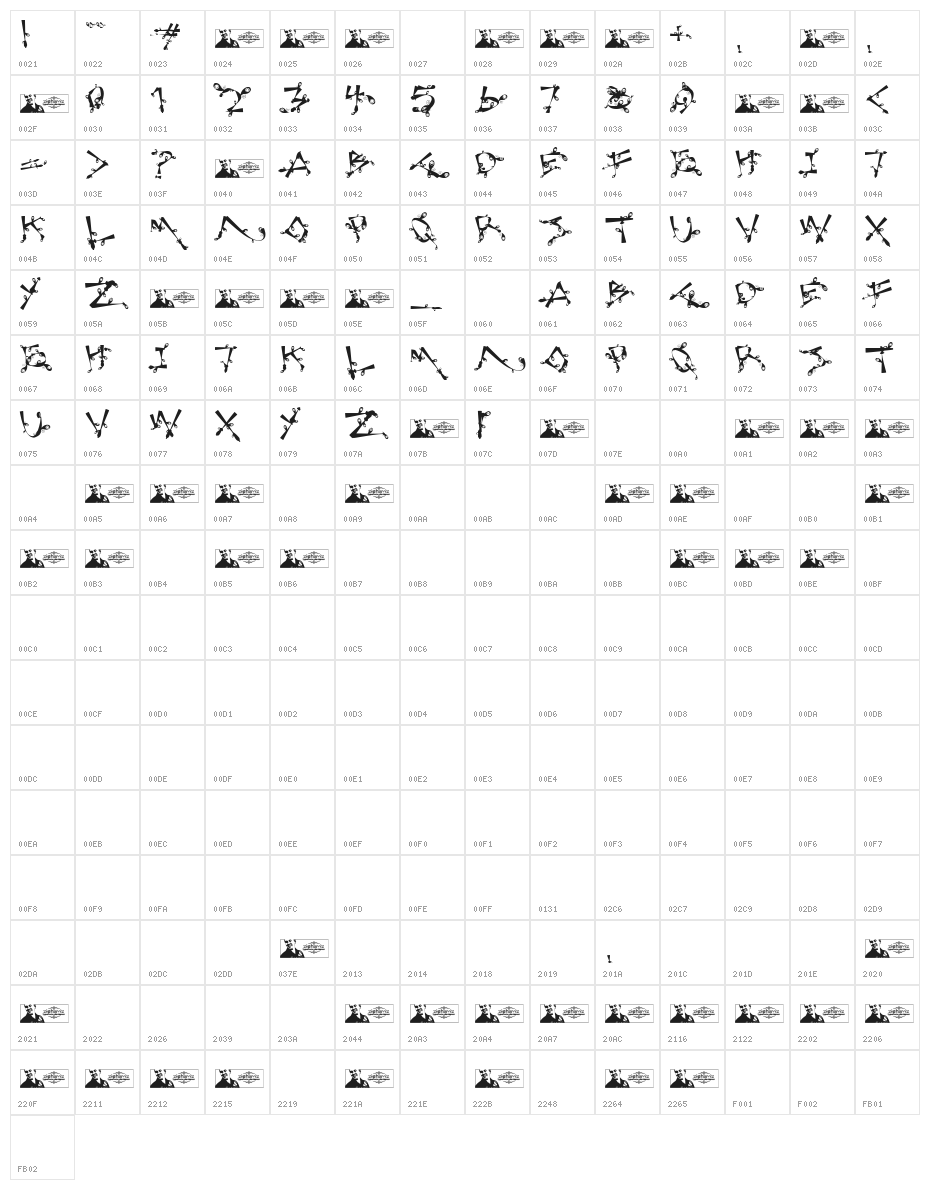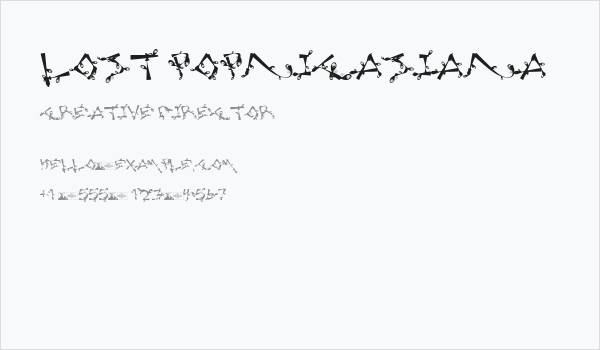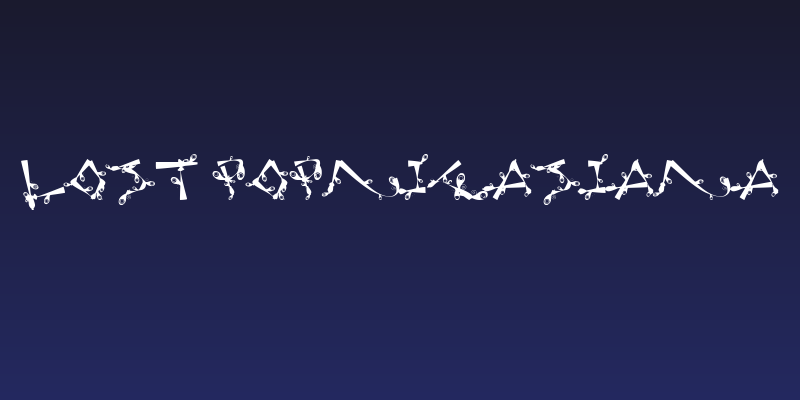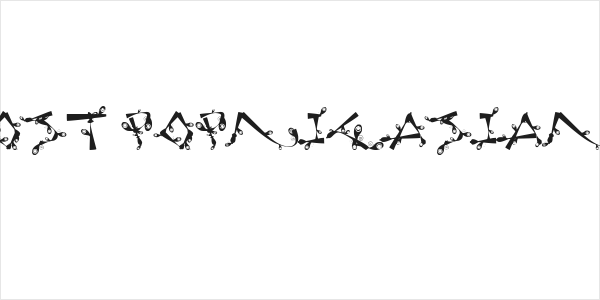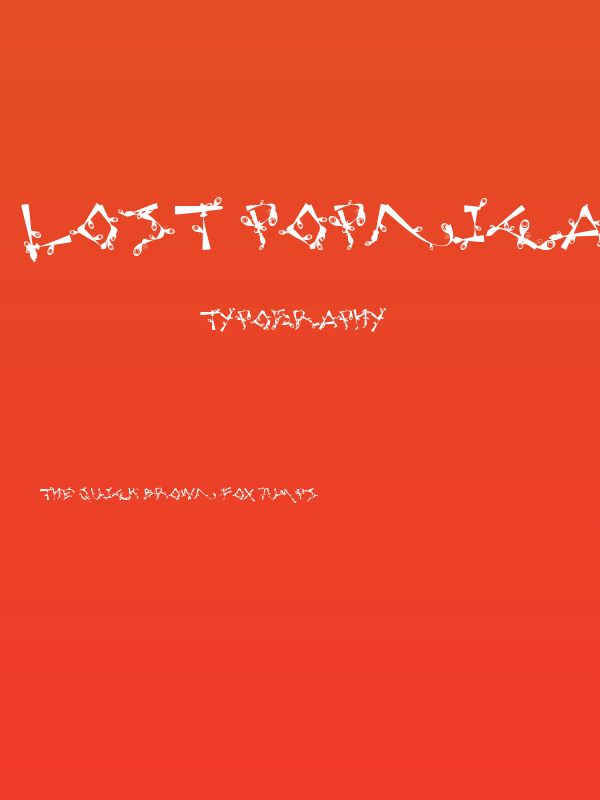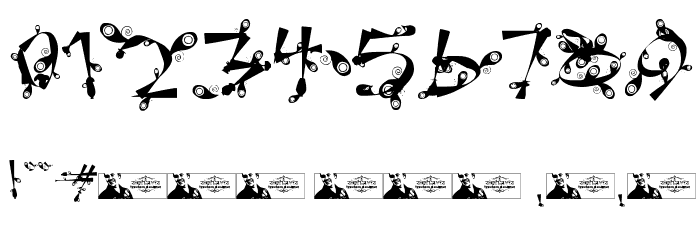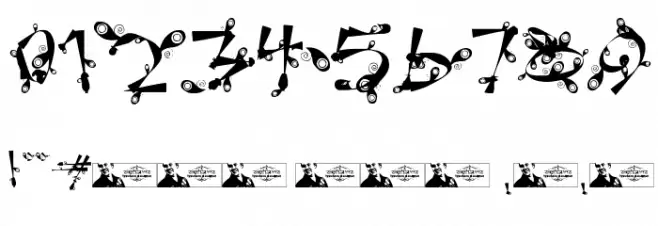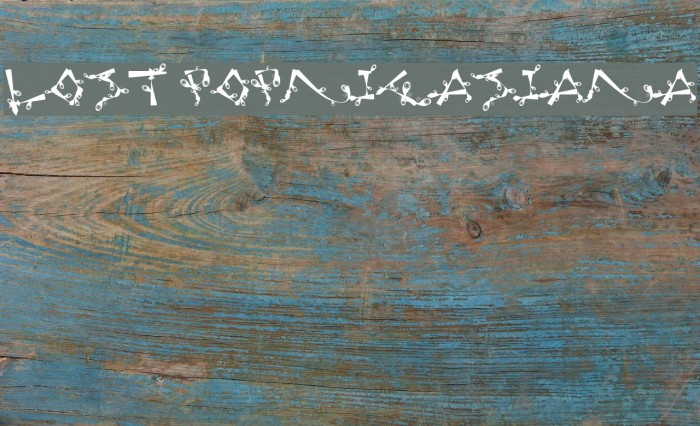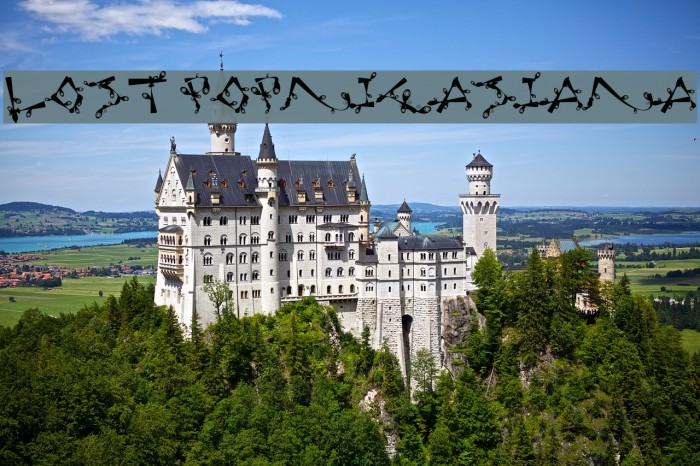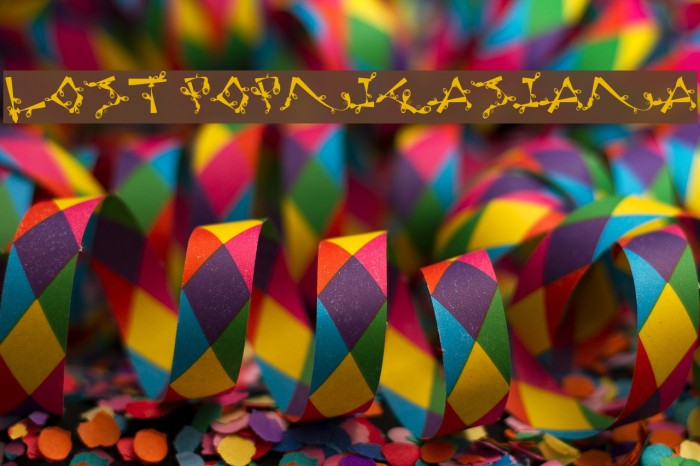
Lost Popnicasiana Font
Lost Popnicasiana Description
This font features a whimsical and decorative style, characterized by its intricate swirls and curls that extend from the main strokes of each character. The letters are bold and playful, with a unique artistic flair that makes them stand out. The uppercase and lowercase letters maintain a consistent design, with the embellishments adding a sense of movement and creativity. The numbers and special characters follow the same ornate pattern, ensuring a cohesive look across all elements. This font's distinctiveness makes it ideal for projects that require a touch of fantasy and imagination.
| Proposed Projects | Ideal for children's book covers, fantasy-themed posters, creative invitations, and whimsical branding projects. |